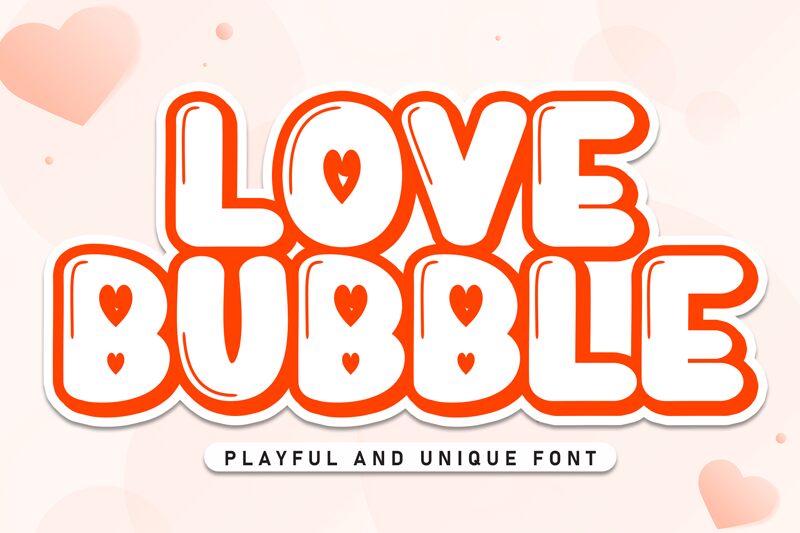
Love Buble font by Scratchones is a free holiday font built to express yourself through waves of bubbly letters that exhibit a lively modern look. The handcrafted engaging typeface brings forward a vibrant set of letters, where each letter highlights its natural and organic feel. Enjoy its decorative daring appearance and youthful presence.
Use Love Buble font in your cheerful summer or winter holiday projects. This tool instantly gives life to posters, flyers, social media posts, websites, greeting cards, cover designs, postcards, and patterns. Express yourself differently and explore branding, blogs, apparel items, packaging, and display purposes.